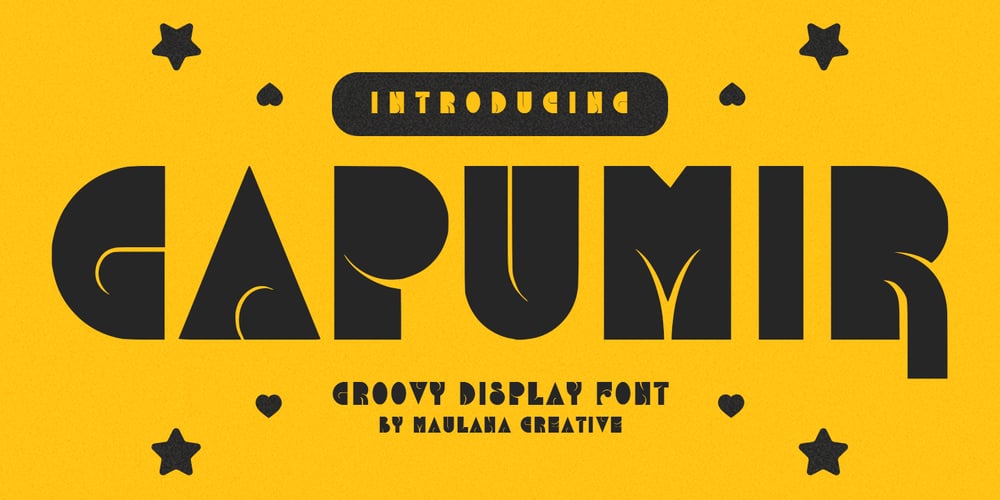
MC Gapumir
MC Gapumir font
MC Gapumir Font Family was designed by Gilang Maulana and published by Maulana Creative. MC Gapumir contains 1 styles and family package options. Gapumir futuristic display font is a modern font. With bold stroke, fun character with alternates. To give you an extra creative work. Gapumir font support multilingual language. This font is good for logo design, Social media, Movie Titles, Books Titles, a short text even a long text letter and good for your secondary text font with sans or serif. Make a stunning work with Gapumir font.